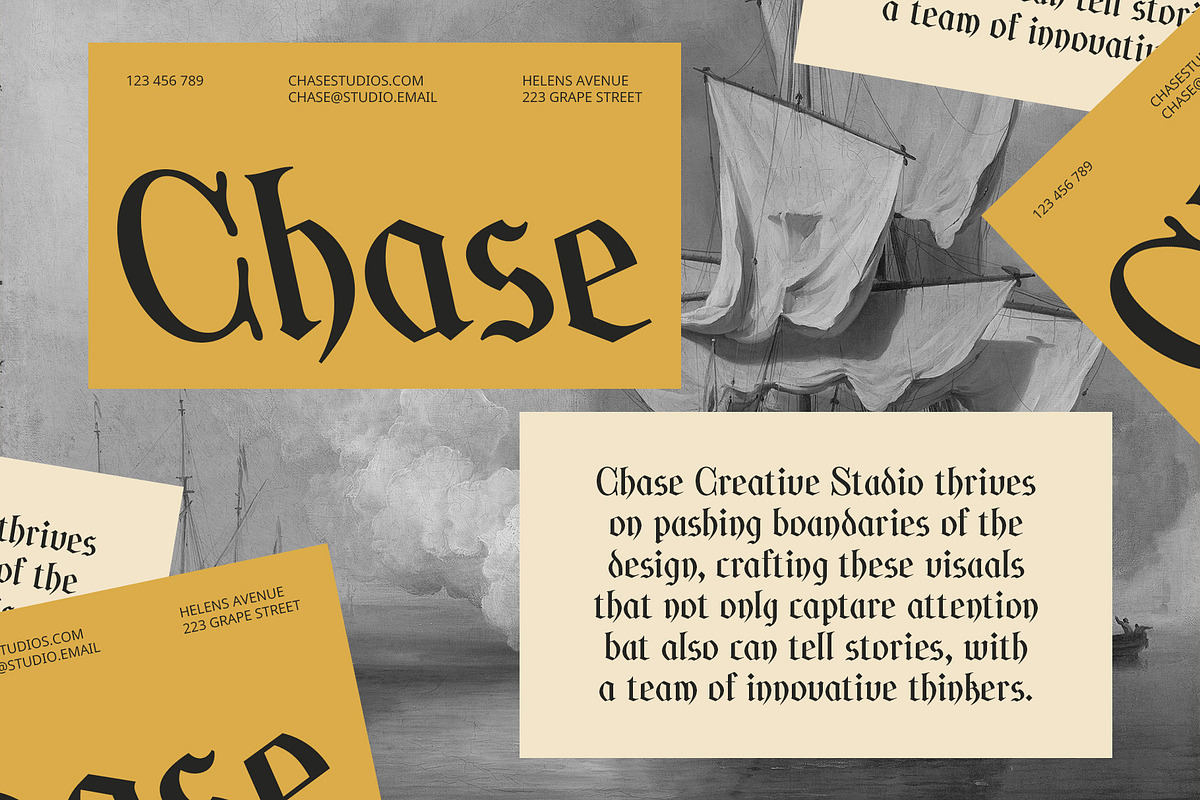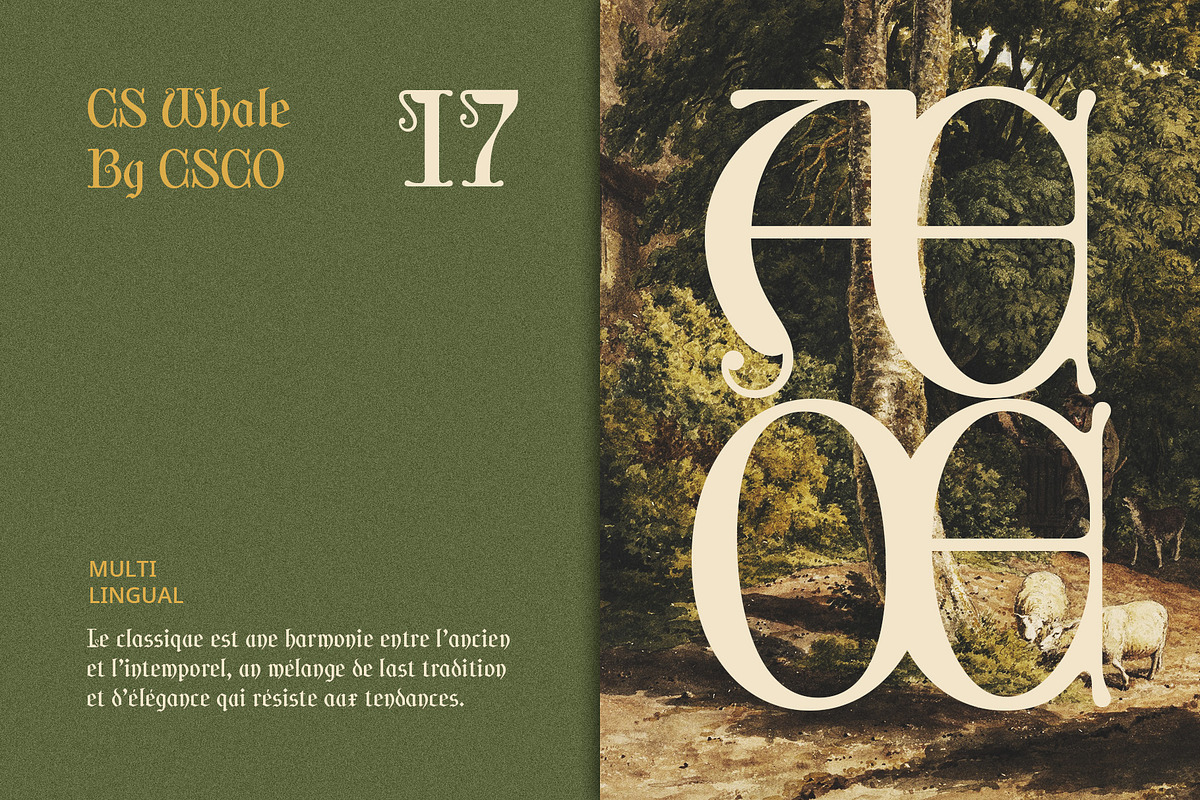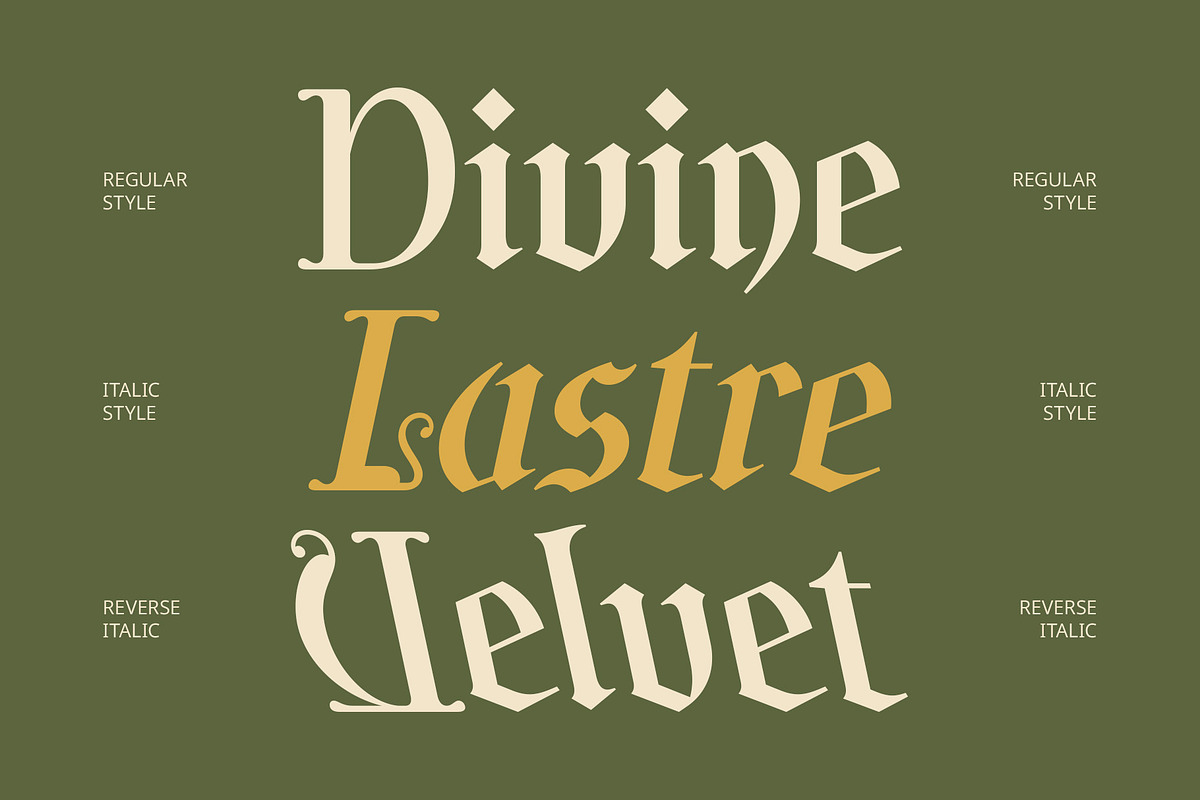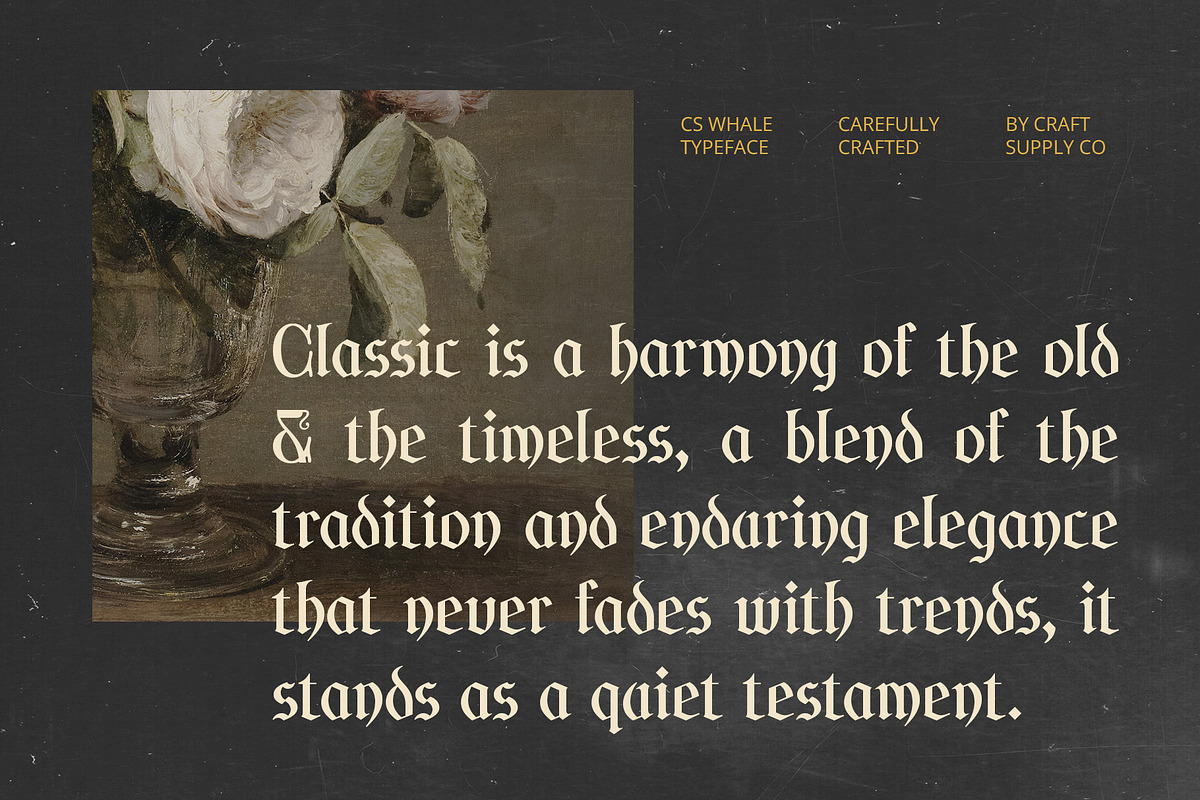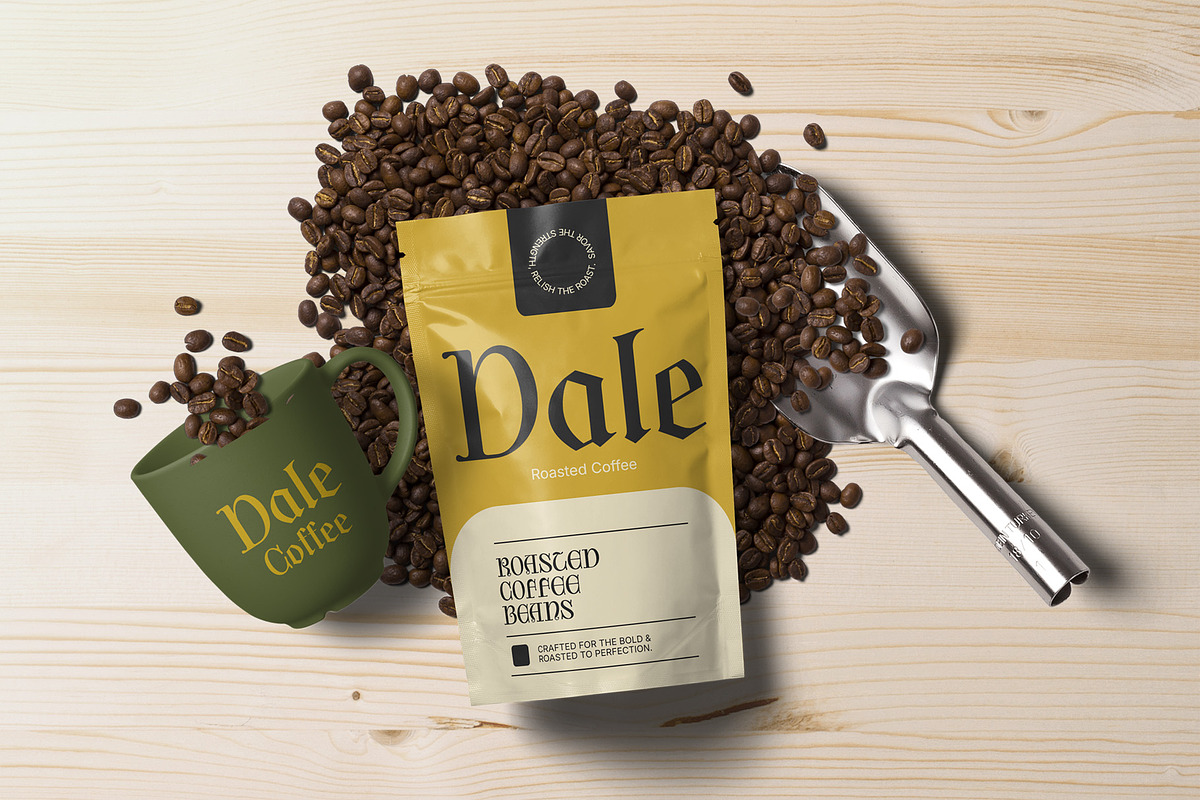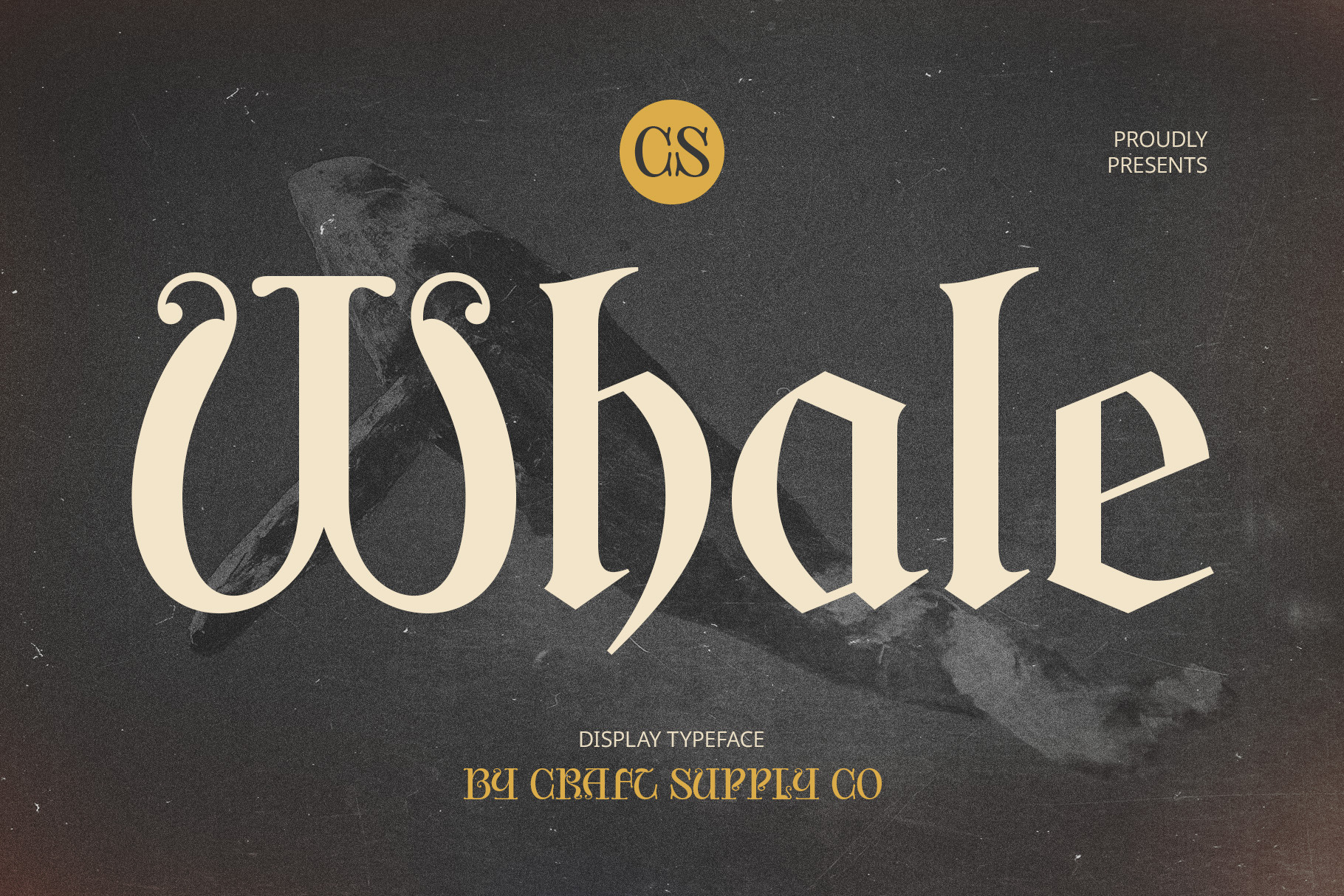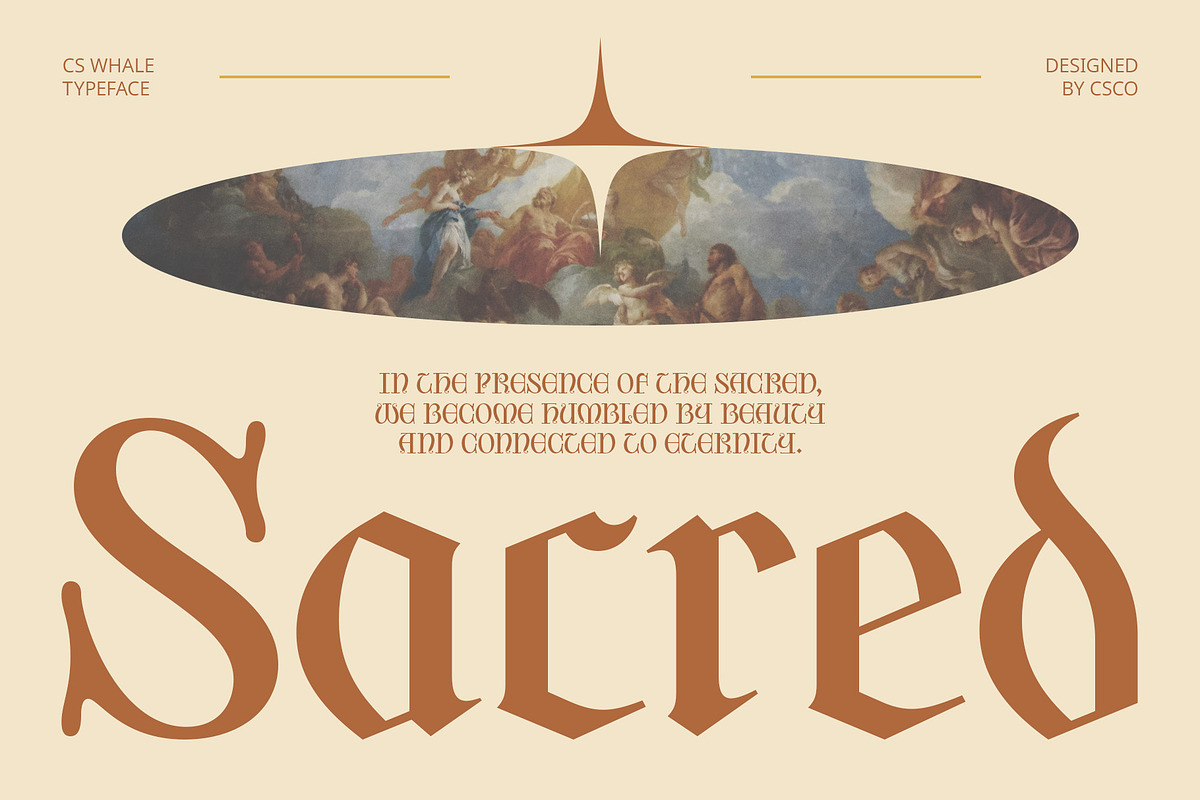
CS Whale – Gothic Uncial Font
CS Whale – Gothic Uncial Font: A Timeless Blend of History and Elegance
Classic Gothic Uncial Display Font CS Whale is a classic gothic uncial display font that seamlessly merges the intricacies of medieval writing styles with a touch of artistic elegance. This font showcases unique capital letters characterized by their graceful curves and robust lines, all adorned with intricate ornamental details. The result is a rich historical ambiance that pays homage to the artistry of the past while remaining relevant in contemporary design.
Evoking Nostalgia in Formal Contexts Often employed in formal and traditional applications, CS Whale is the perfect choice for projects such as invitations, manuscripts, and artworks that aim to evoke a sense of nostalgia. Its gothic uncial style captures the spirit of historical significance, making it an excellent fit for designs that seek to communicate tradition and authenticity.
Unique Elegance with Strong Visual Appeal CS Whale stands out with its combination of elegance and uniqueness, offering a strong visual appeal that draws the eye. Each letterform is meticulously crafted to ensure that it not only communicates a message but also tells a story, transporting users back to a classic era with its captivating beauty.